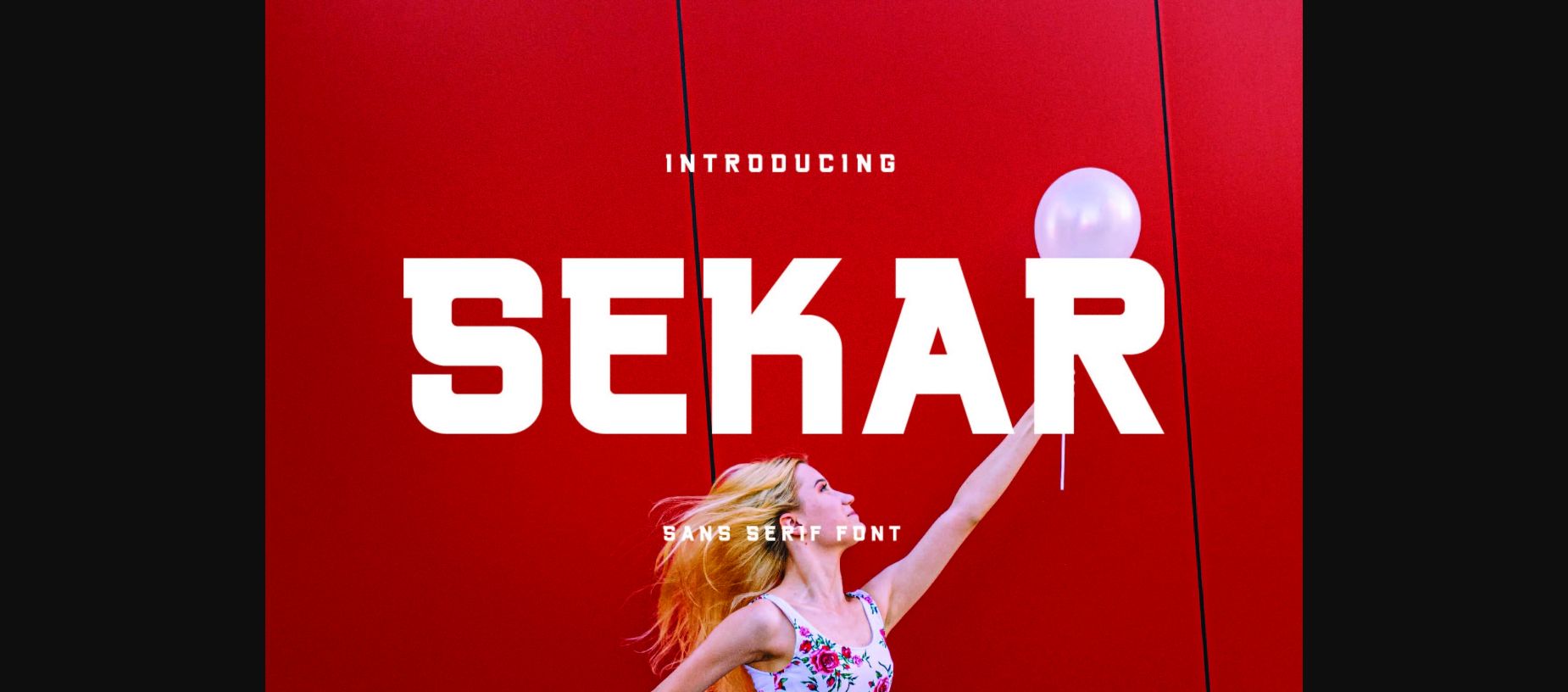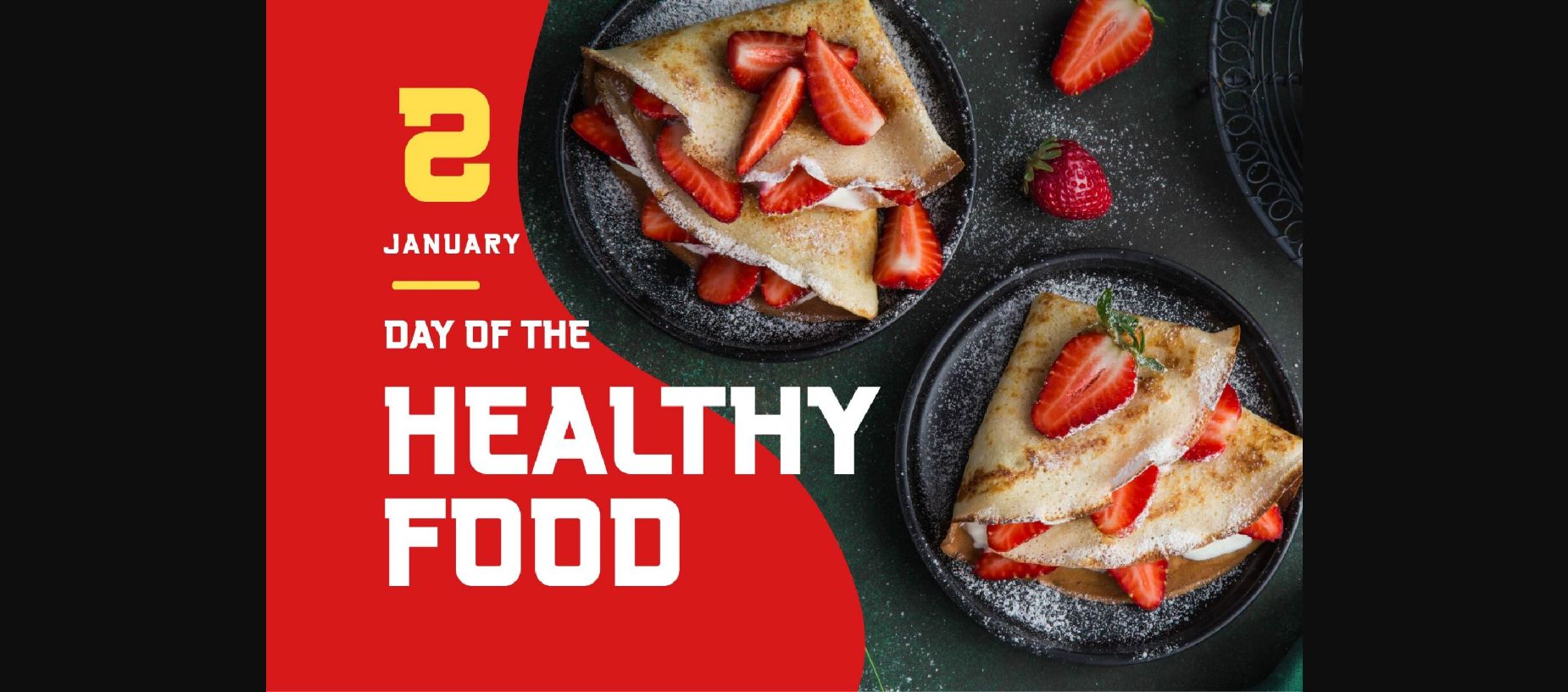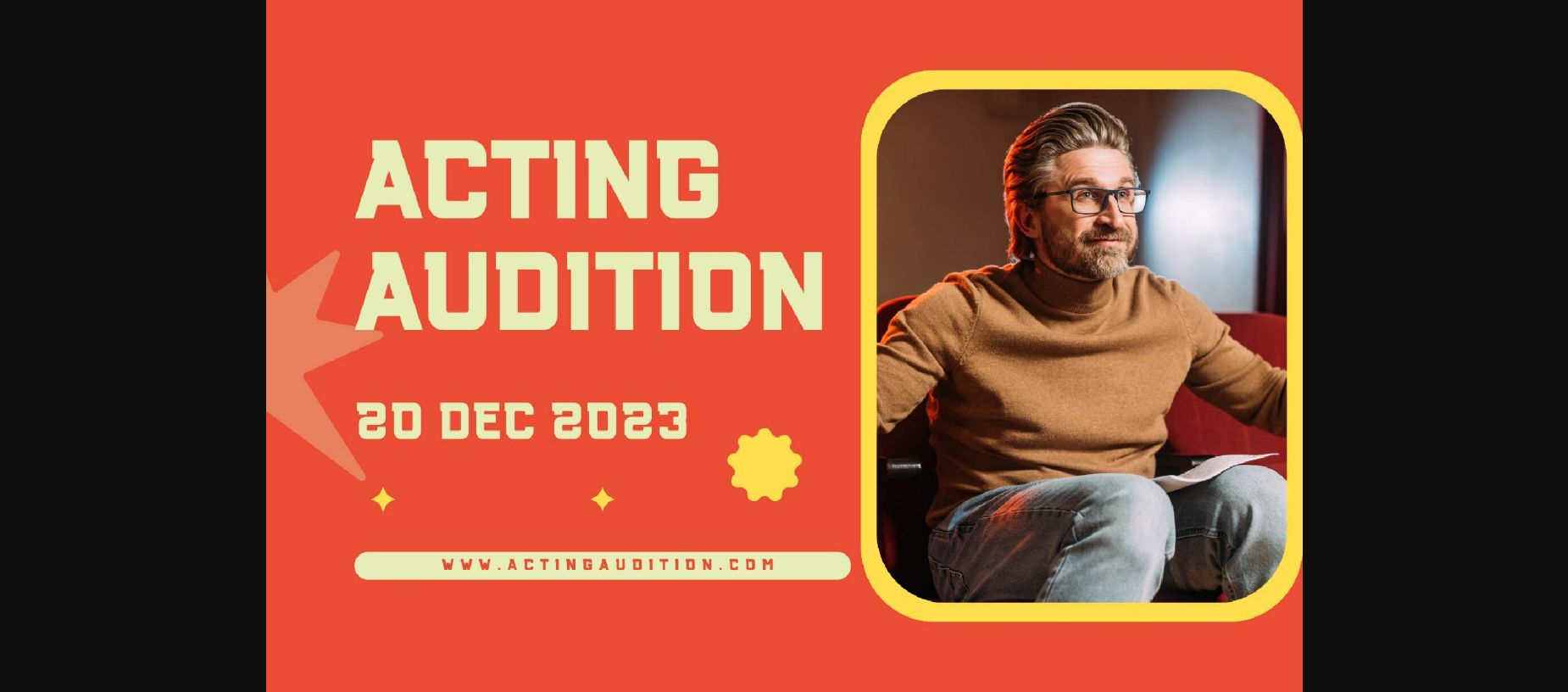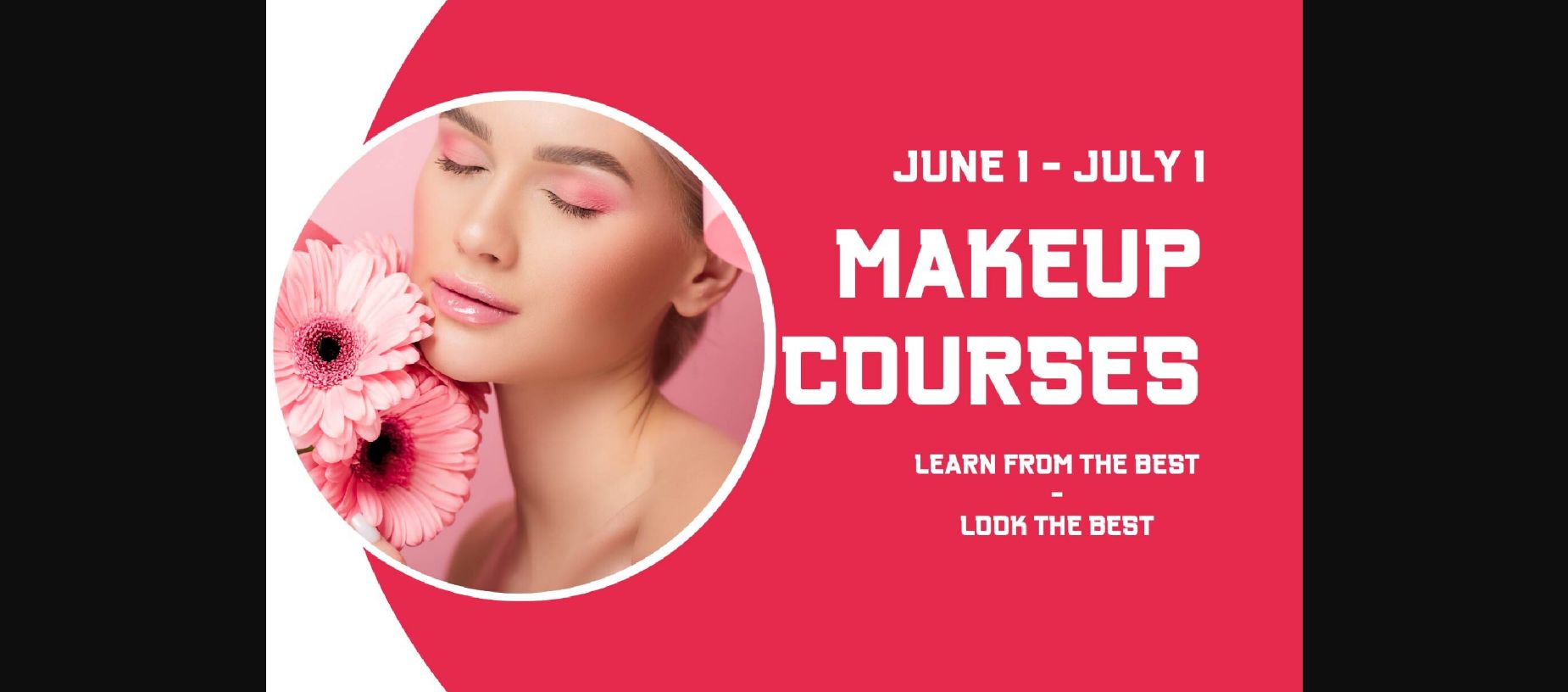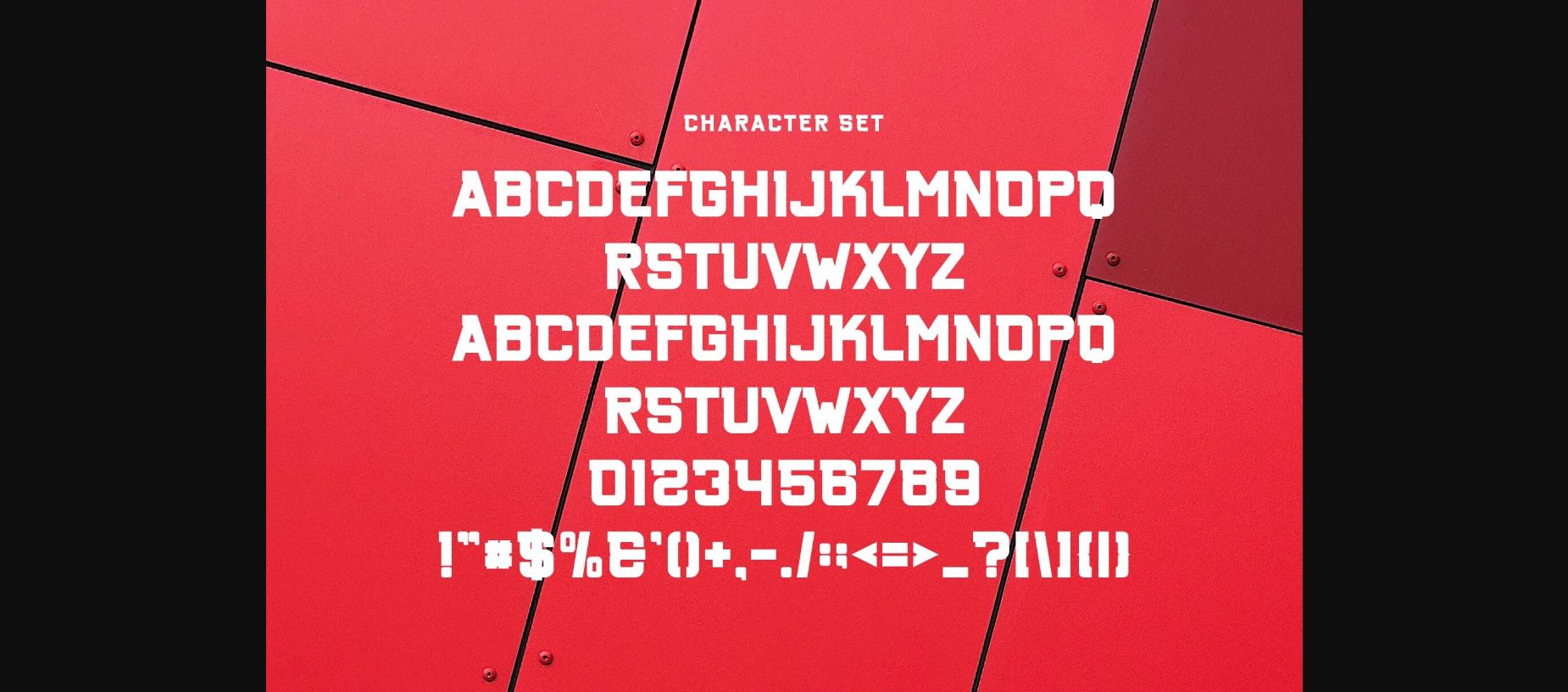
Sekar Font
About Sekar Font
Sekar Sans Font Typeface inspired by the famous minimalist logo perfect for the purposes of designing templates, brochures, videos, advertising branding, logos, invitation, layout design, elegant crafting, beauty design and other.